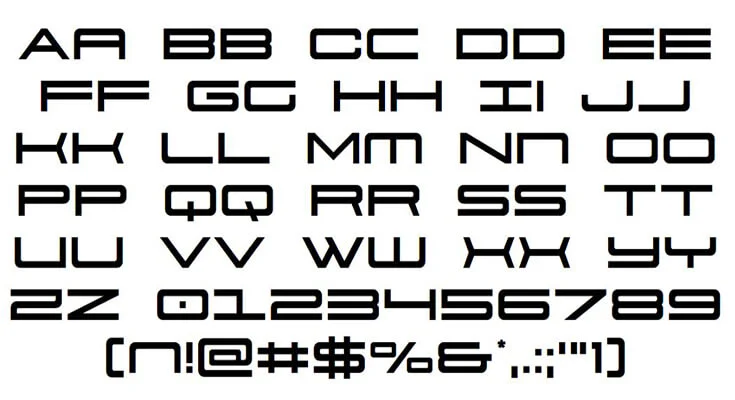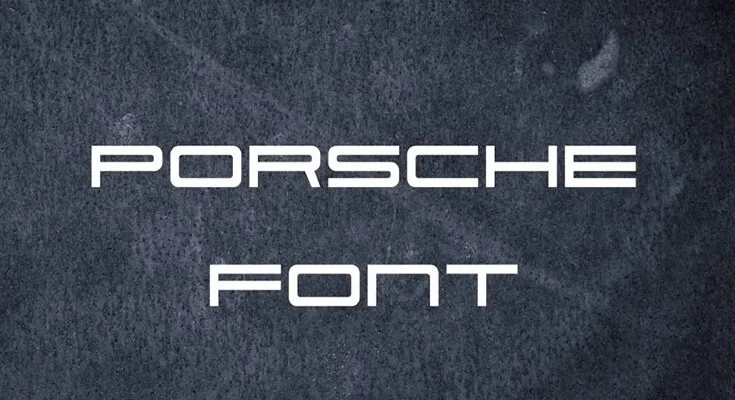
Introducing Porsche Font! Porsche is a German automobile manufacturer known for its high-performance sports cars, sedans, and SUVs.
That was founded in 1931 by Ferdinand Porsche. Porsche is the leading sports car manufacturer in the world. In 2020, the company produced 272,162 vehicles.
The Porsche logo was inspired by the coat of arms of the Free People’s State of Württemberg. “[The font used for the title of this logo is very similar to the 911 Porsha font designed by a notable type designer called Iconian Fonts]”.
“911 Porsha typeface comes in a single weight that has TTF format. This style contains 122 glyphs and 235 binary stored kerning pairs. Moreover, it also supports 34 languages“.
The font’s clean and simple letterforms reflect the brand’s minimalist and innovative design ethos. Its geometric shapes and sharp angles create a sense of precision and efficiency that’s characteristic of the Porsche brand.
• The font is highly legible and suitable for use in a variety of design projects, from automotive design to tech and corporate branding.
Porsche is a great choice for designers who want to convey a sense of sophistication and modernity in their designs.
Porsche is a German automobile manufacturer known for its high-performance sports cars, sedans, and SUVs. The font used for the title of this logo is very similar to the 911 Porsha font.
What font does Porsche use?
The font used for the title of this logo is very similar to the 911 Porsha font designed by a notable type designer called Iconian Fonts.